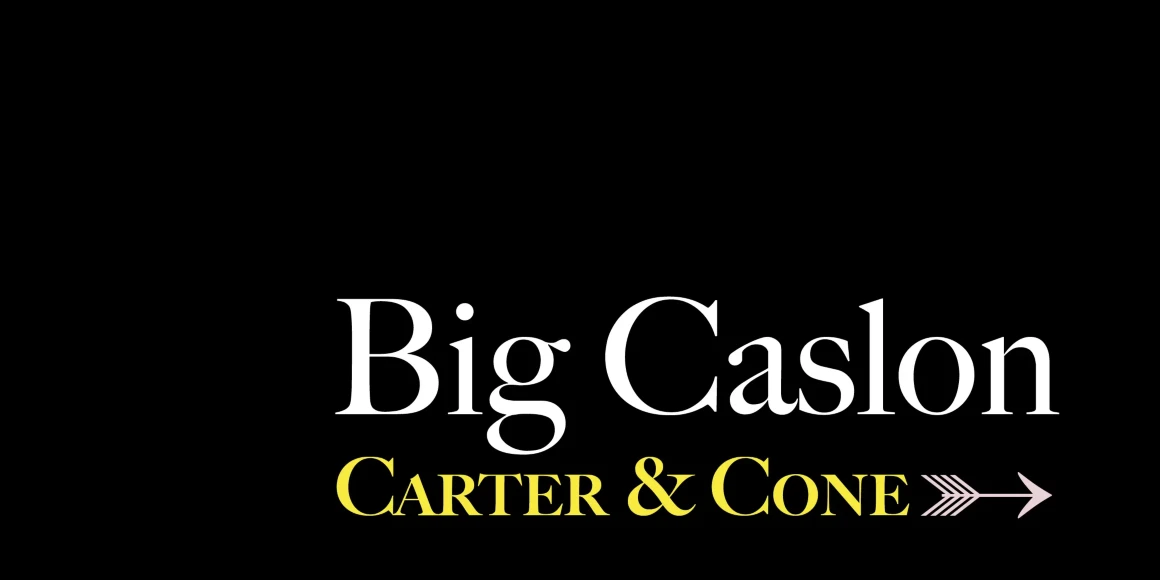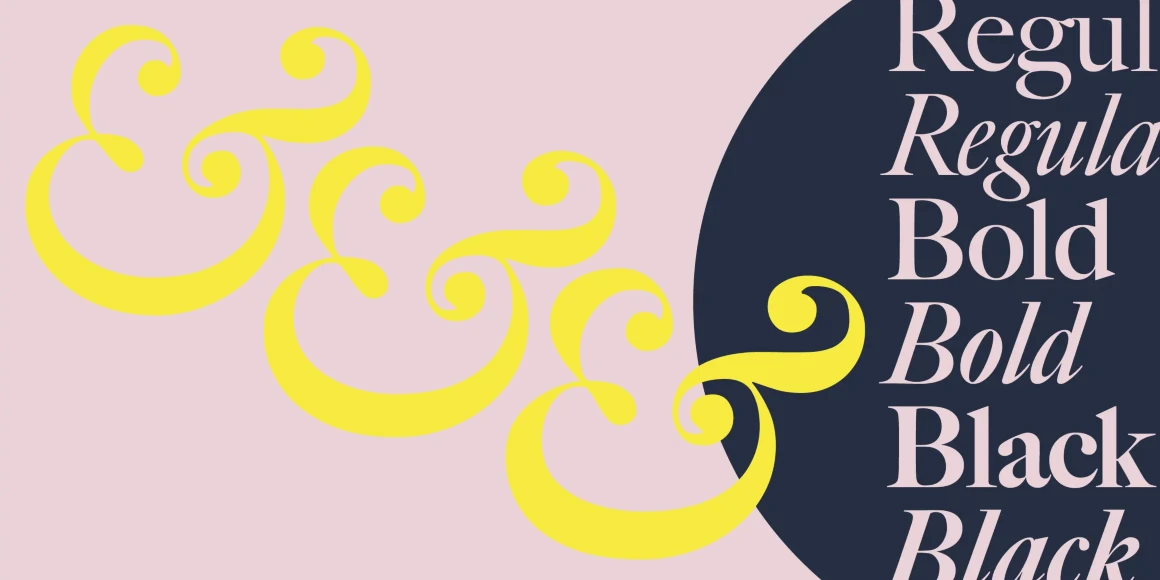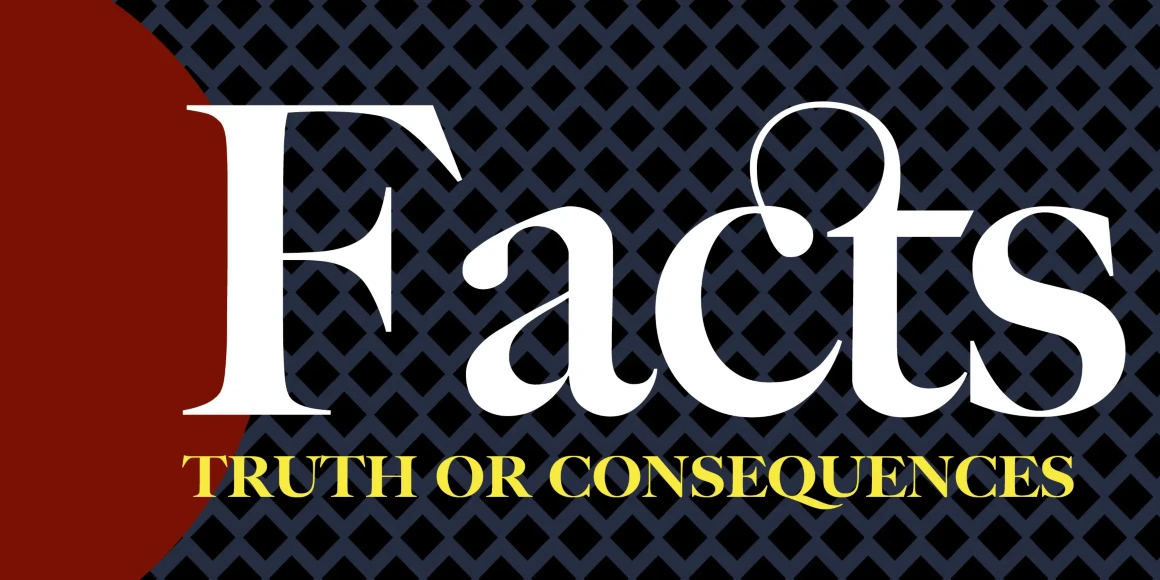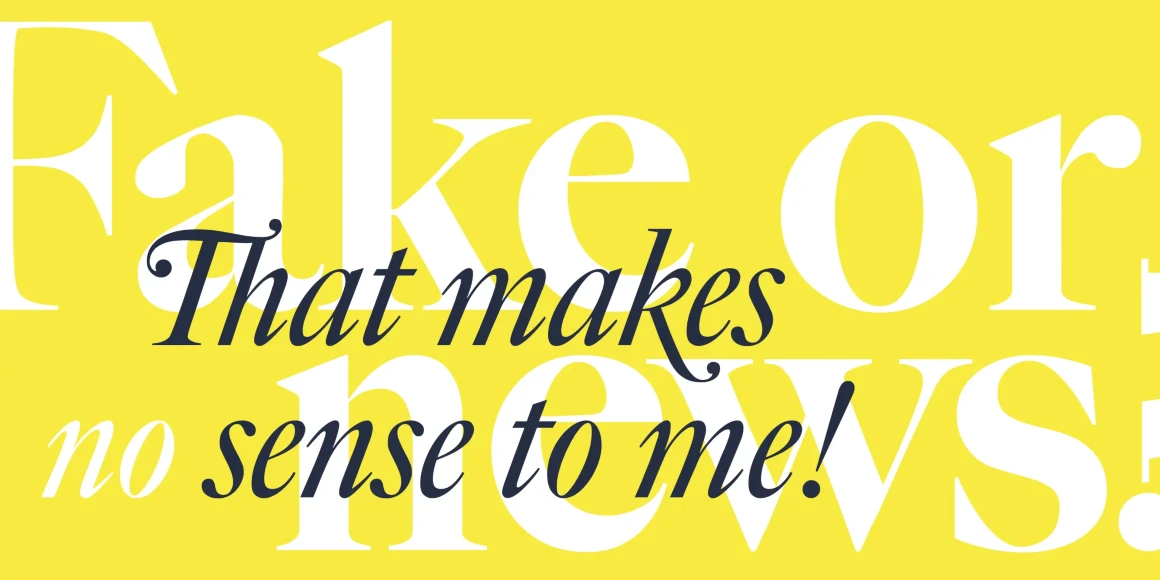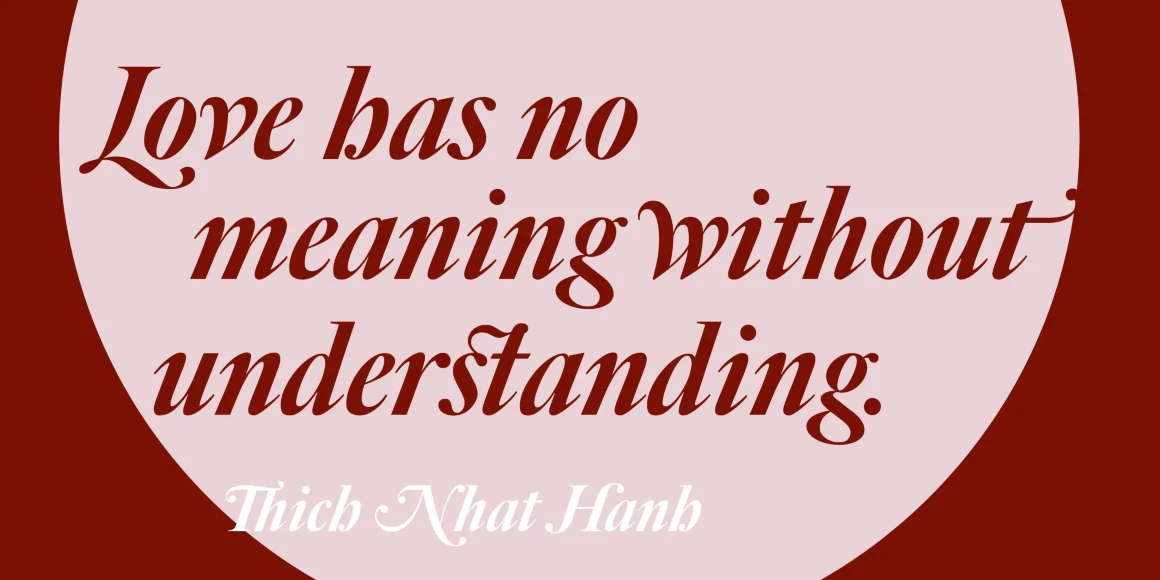
Big Caslon CC
From Carter & Cone
Unlike the consistent text faces by William Caslon, the three largest sizes made by the Caslon foundry are uncommon. Perhaps they were the work of another — or he was in a bold mood? While Caslon’s text types have been revived, the forceful and a touch eccentric display sizes had no revival until Carter & Cone’s Big Caslon. This version, designed by Matthew Carter, expands on the timelessness of the display face and allows for new uses. Available in Regular, Bold, and Black and companion italics.
Designed by Matthew Carter